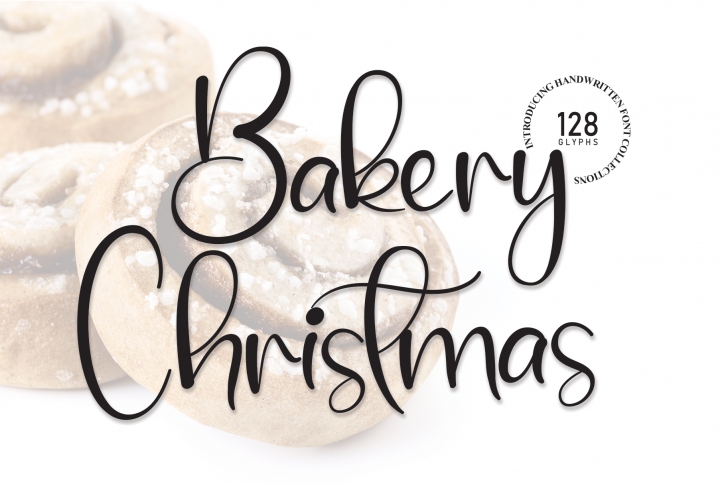
Bakery Christmas FONT Download
Bakery Christmas Font Download
this is a sweet and friendly handwritten display font. Cute and fun, this font is ideal for writing wedding invitations, cards, or any other design that might need a fun touch!